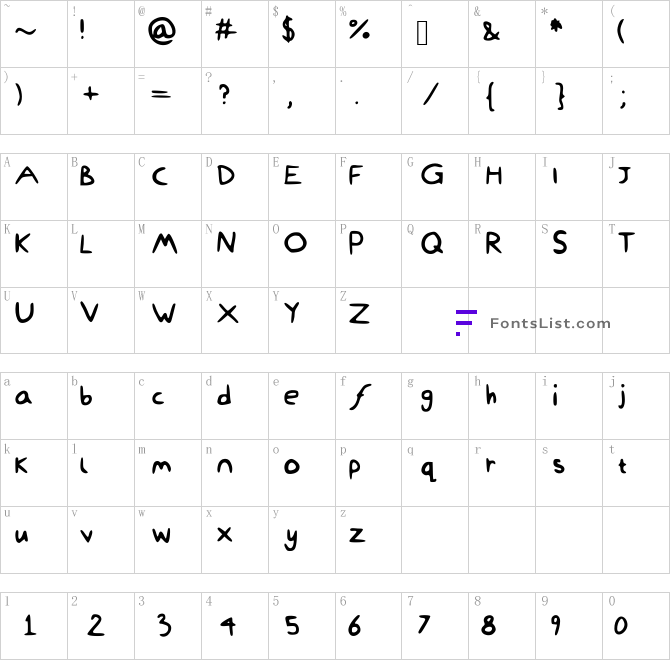
- Font Name:Dami_Was_Here
Dami_Was_Here.ttf is a very beautiful artistic font, Dami_Was_Here.ttf is widely used in the design and printing of various books and pictures,Dami_Was_Here.ttf has a strong visual impact,Dami_Was_Here.ttf is a commonly used font in newspapers, magazines and books, and is used in posters, e-commerce Poster design, store design, logo design, font design and other fields.Dami_Was_Here.